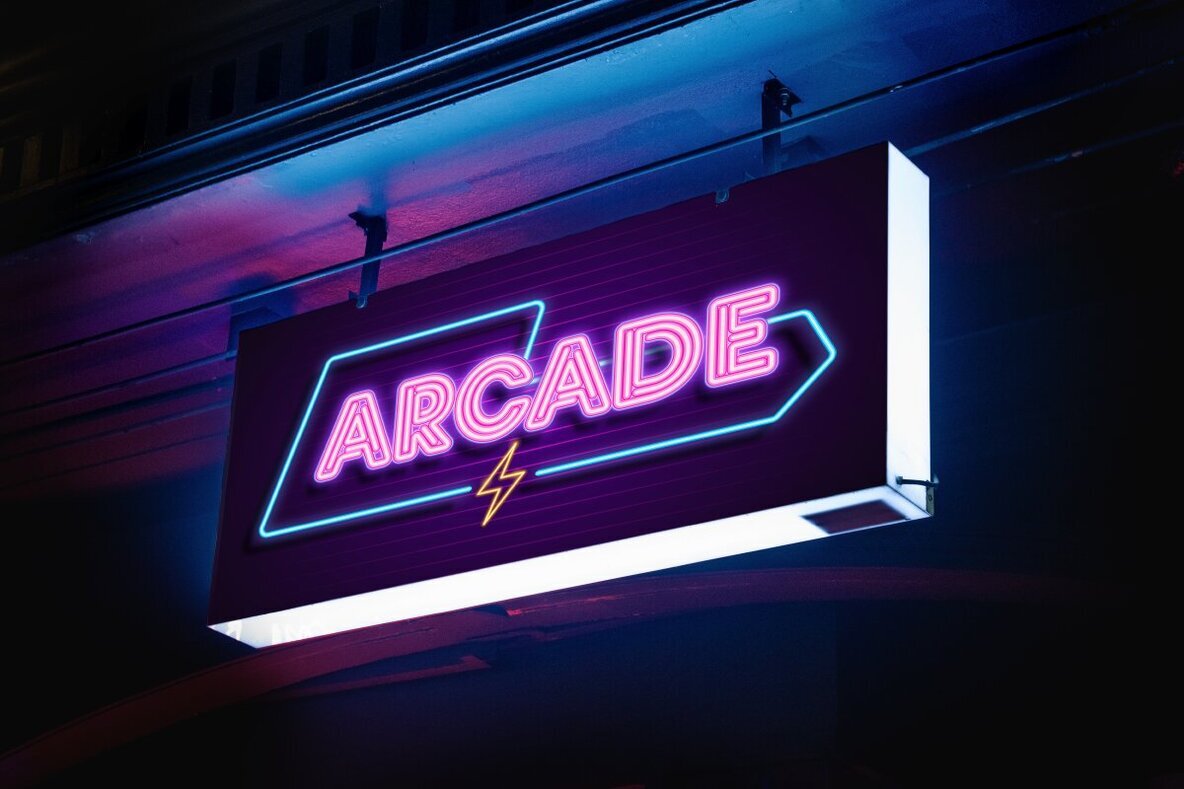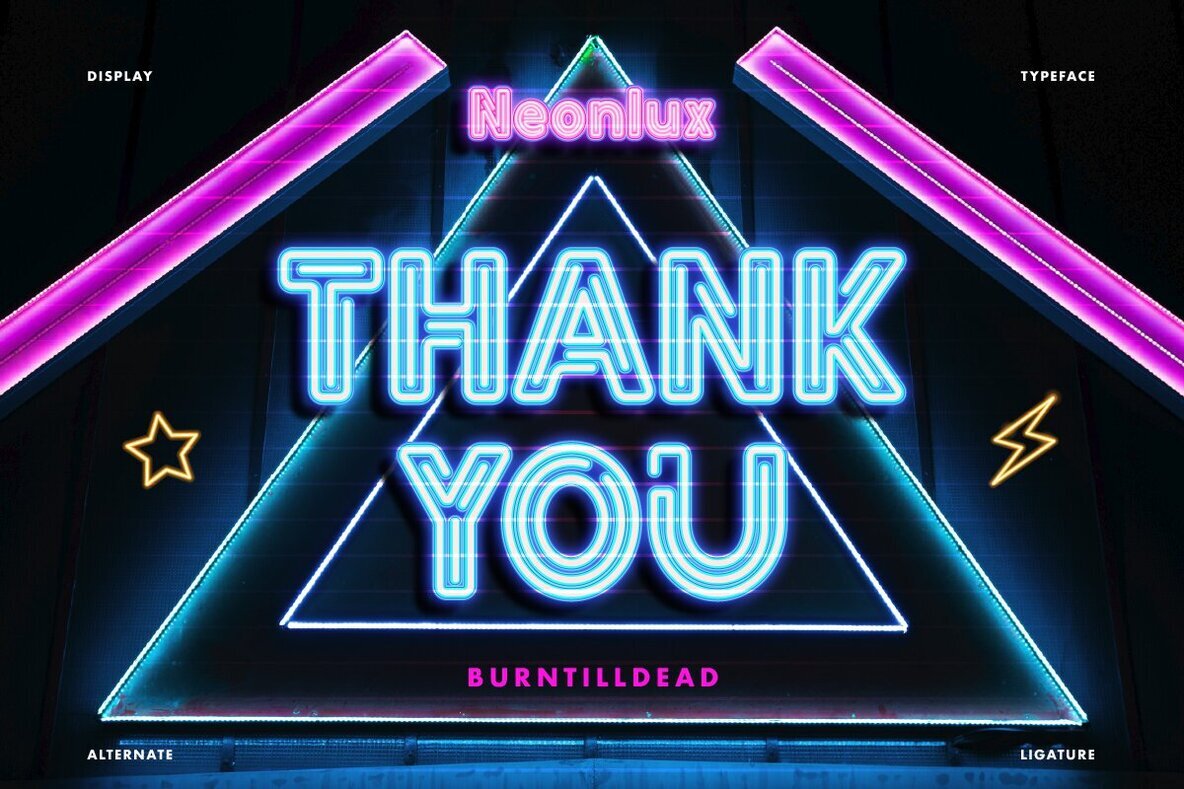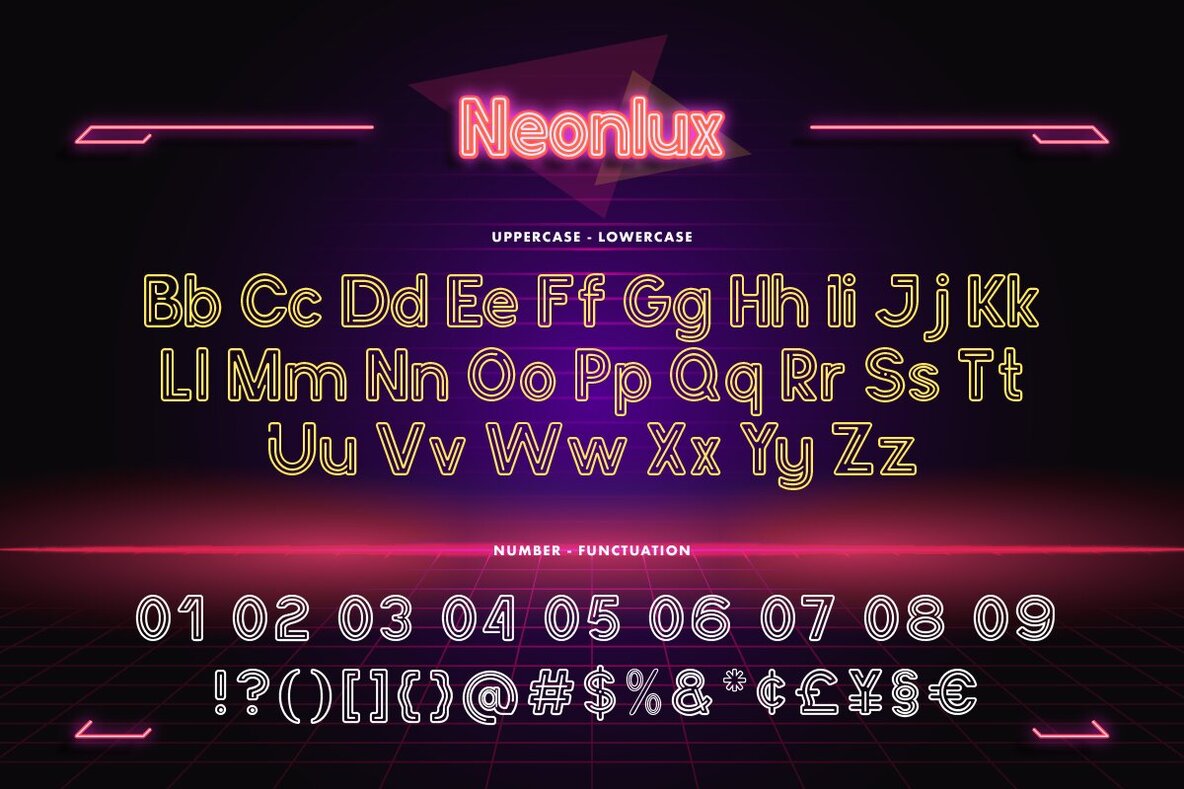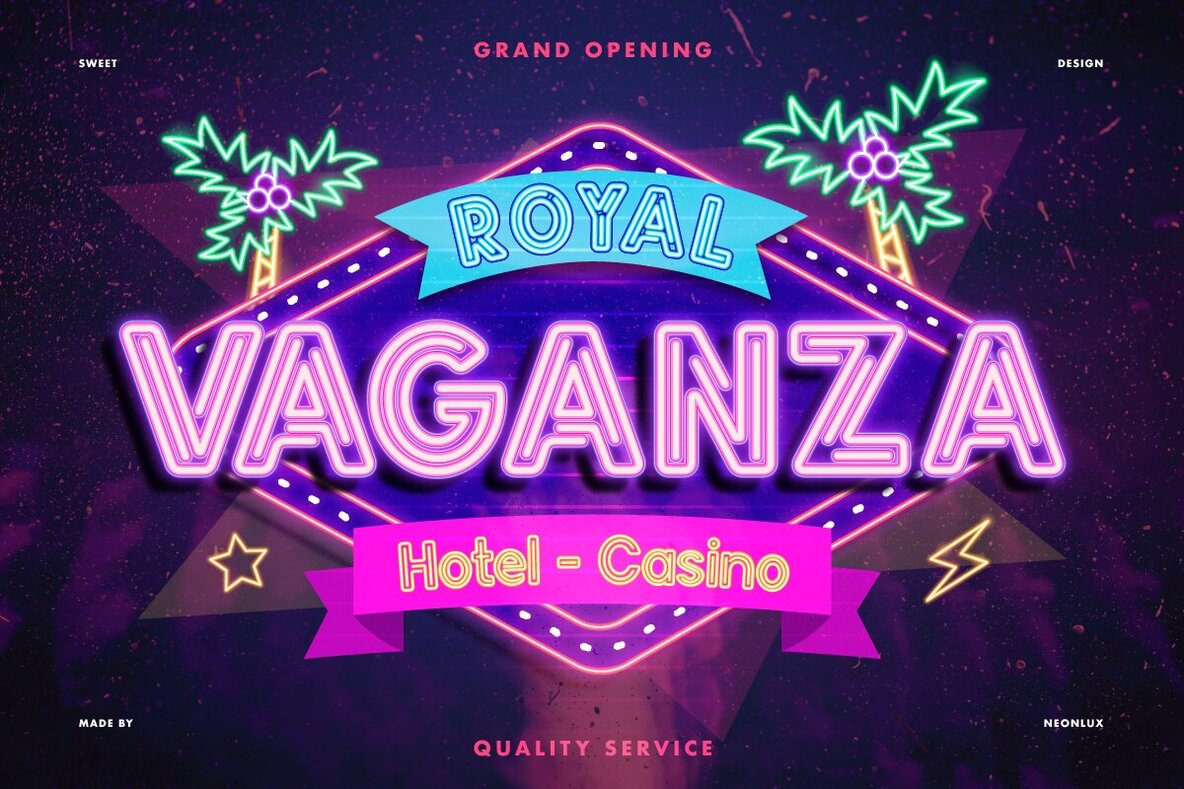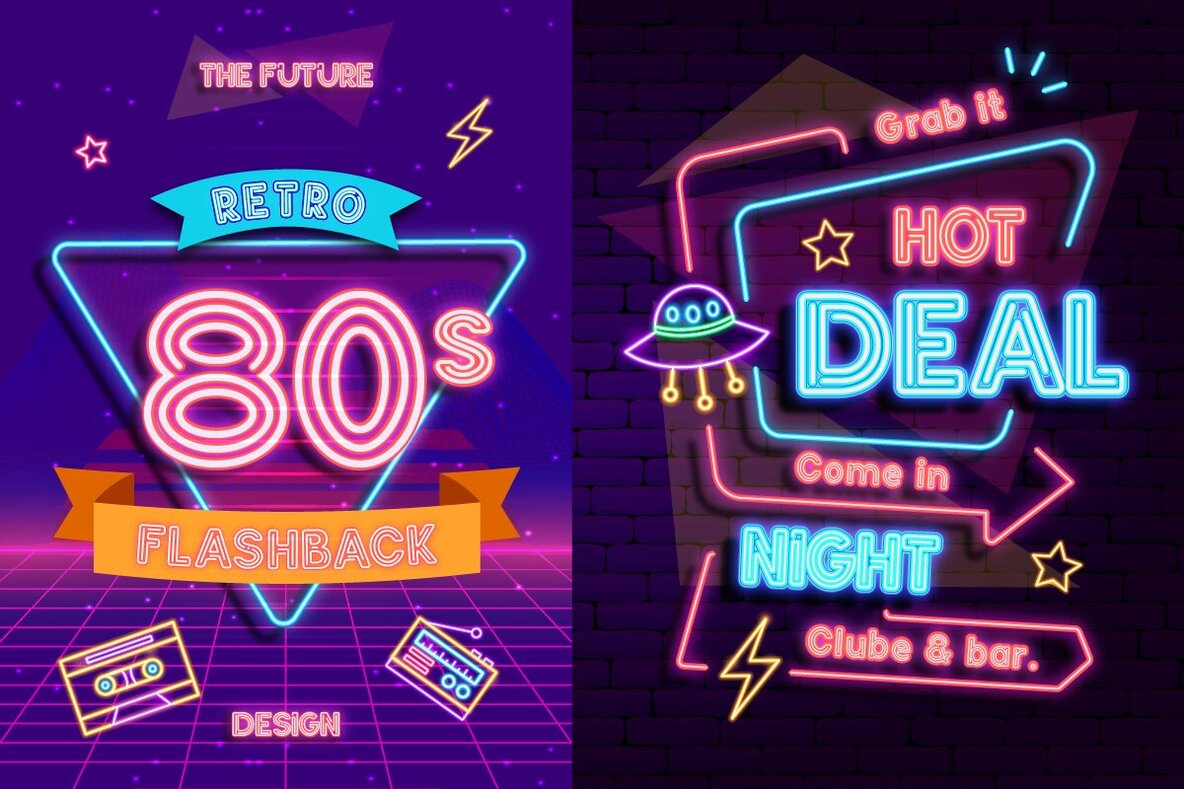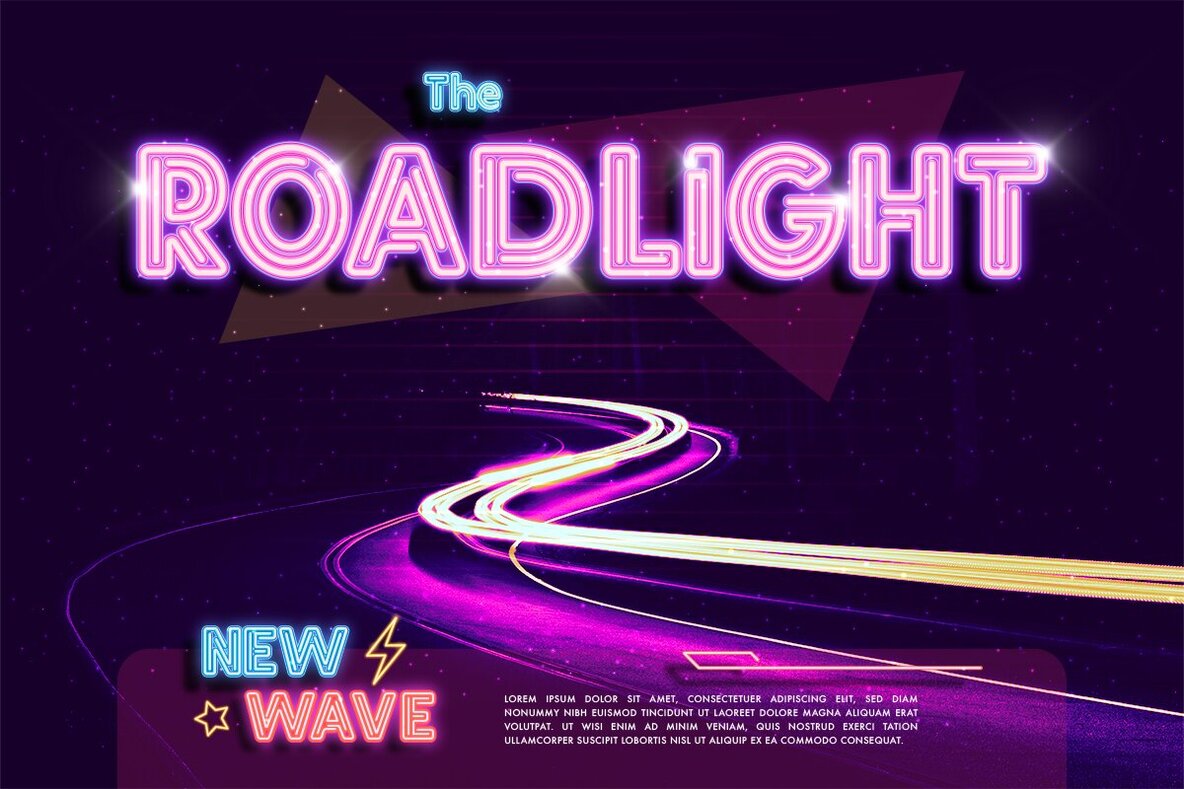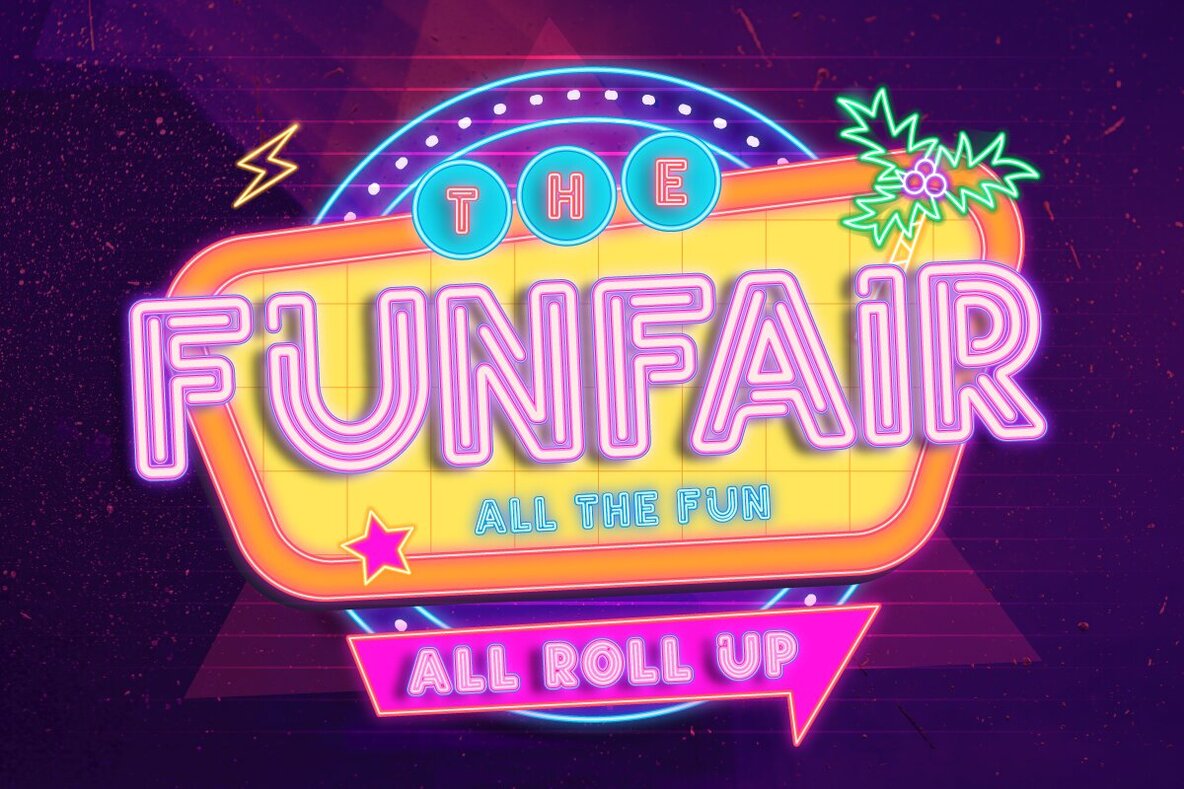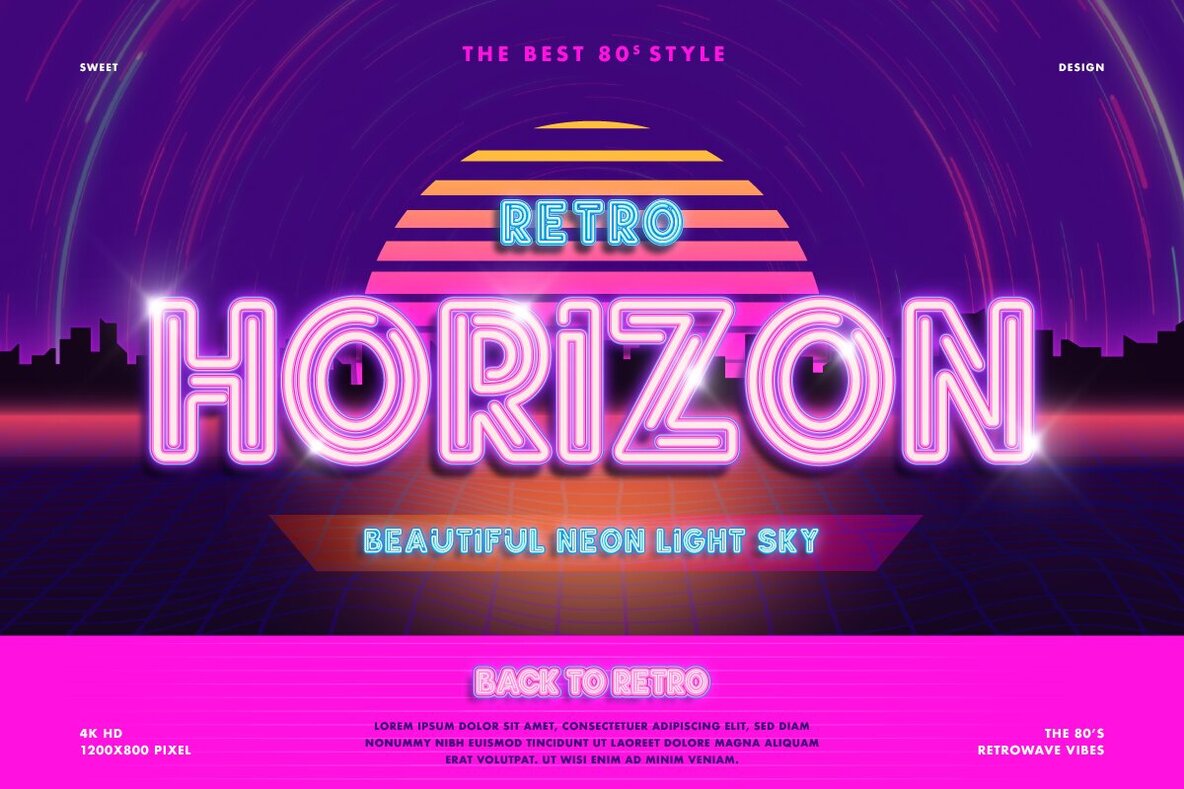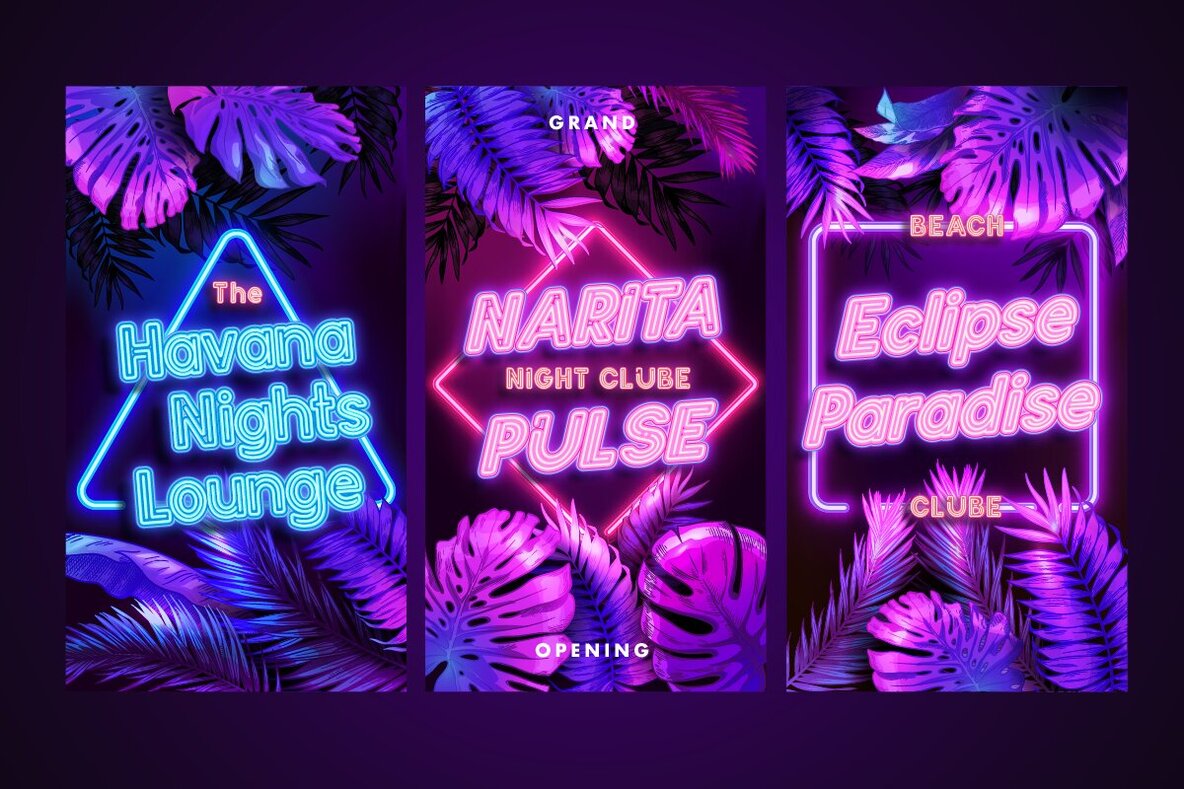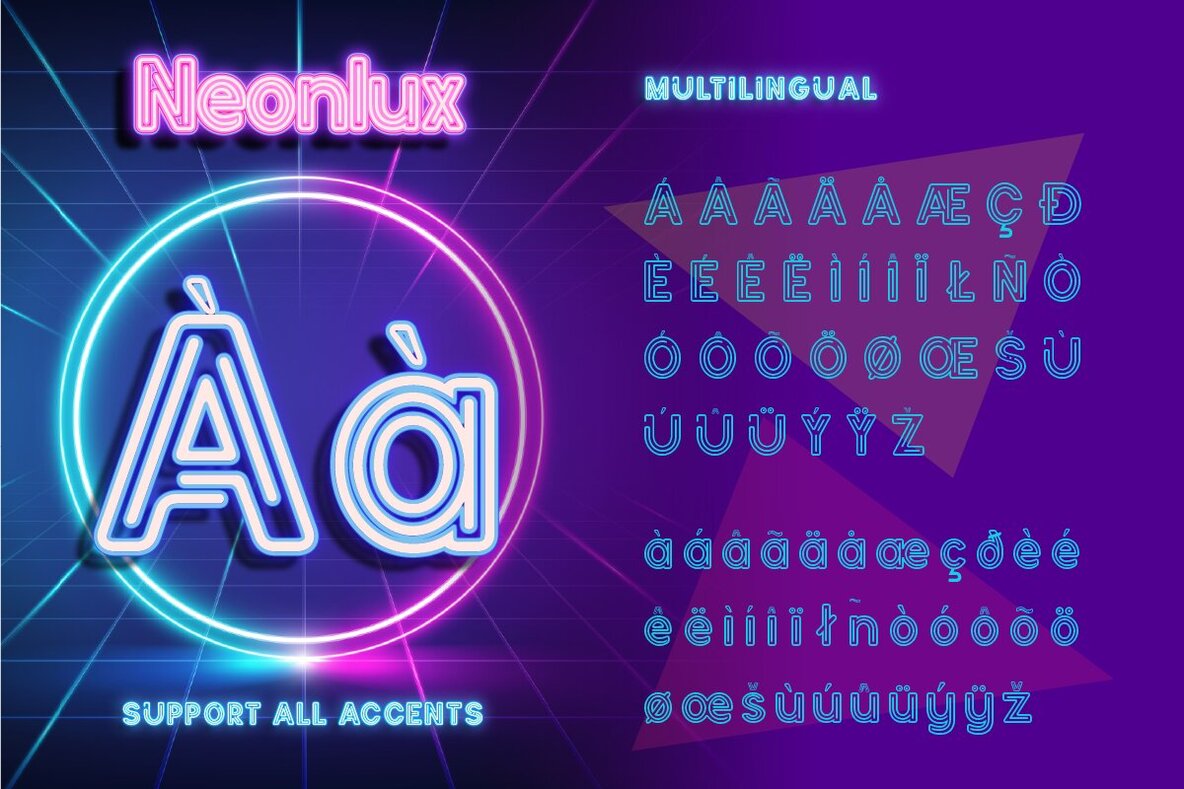
Neonlux Font
Neonlux Regular
Neonlux gives your designs a unique touch with its retro-futuristic feel and vibrant colors. Ideal for social media graphics, posters, and various creative projects, this neon font ensures your message stands out.
- Uppercase & Lowercase Letters (A-Z)
- Numbers
- Punctuation